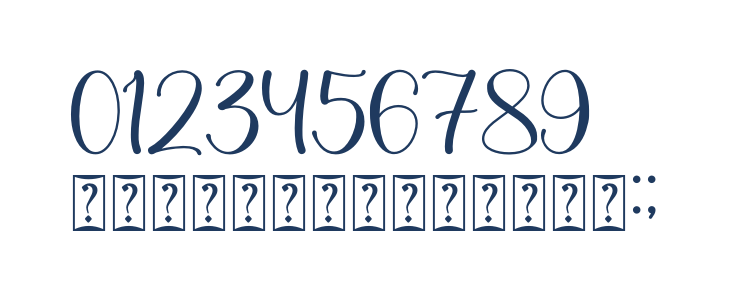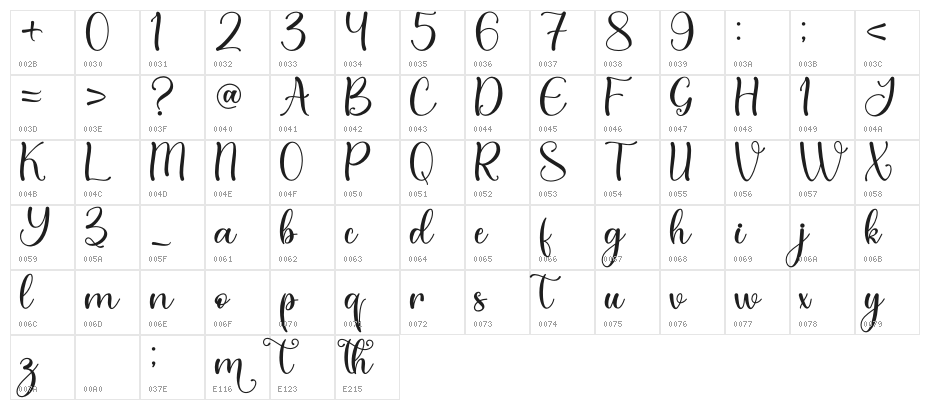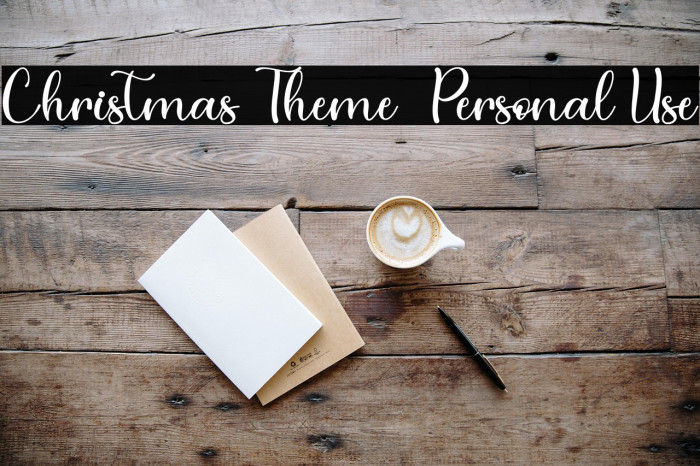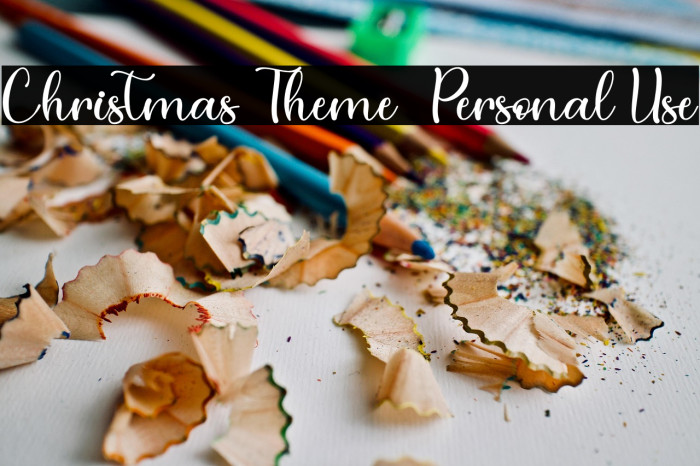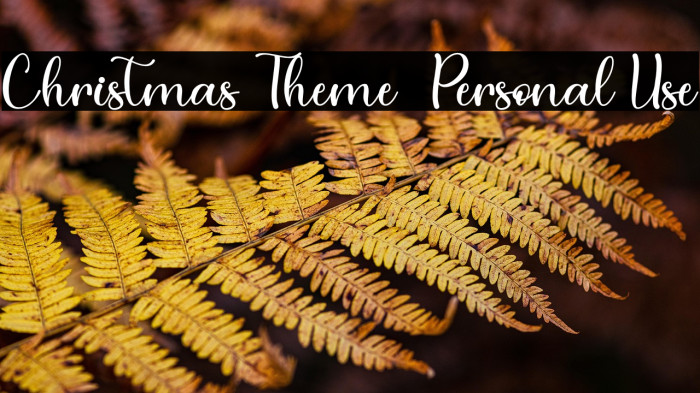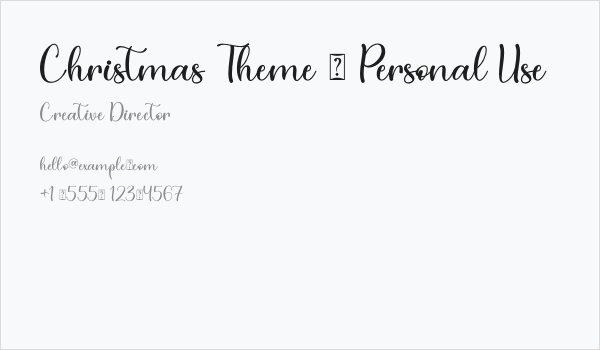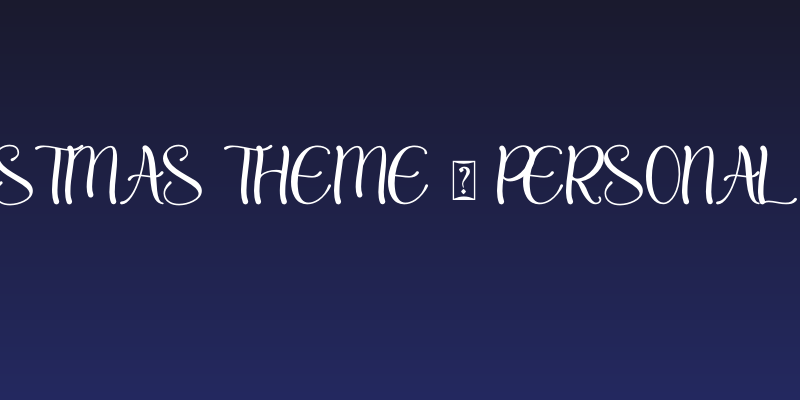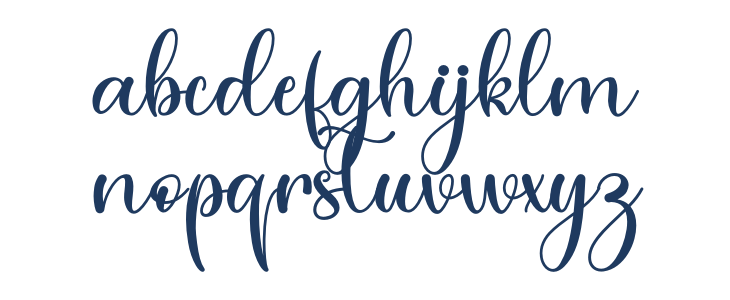
Christmas Theme - Personal Use Font
Christmas Theme - Personal Use Description
This font features a whimsical and festive style, perfect for holiday-themed projects. The characters are elegantly crafted with a flowing script that adds a touch of sophistication and playfulness. The uppercase letters are bold and ornate, while the lowercase letters maintain a consistent fluidity, enhancing readability. The numbers are designed with a similar flair, ensuring a cohesive look across all text. The font's decorative nature makes it ideal for creating eye-catching designs that capture the spirit of the season.